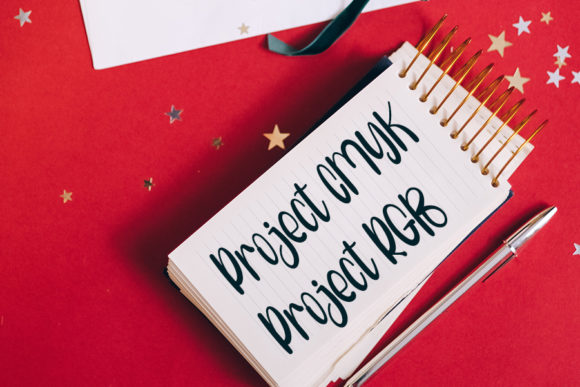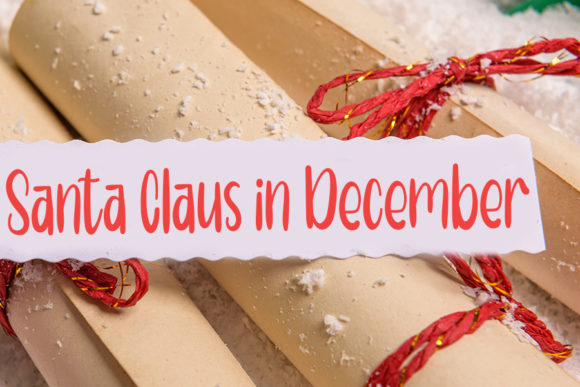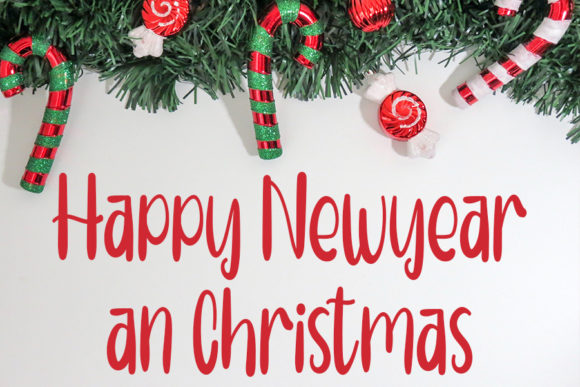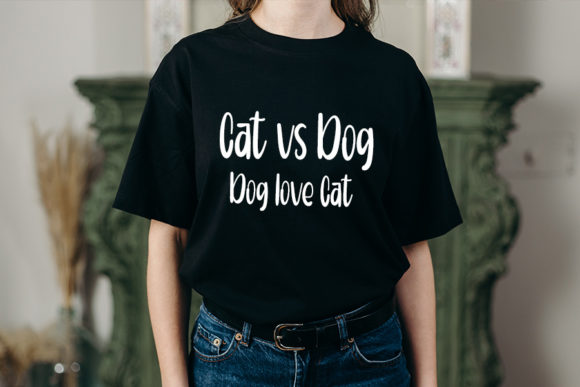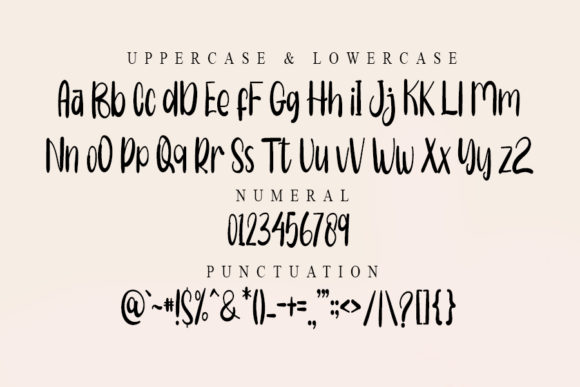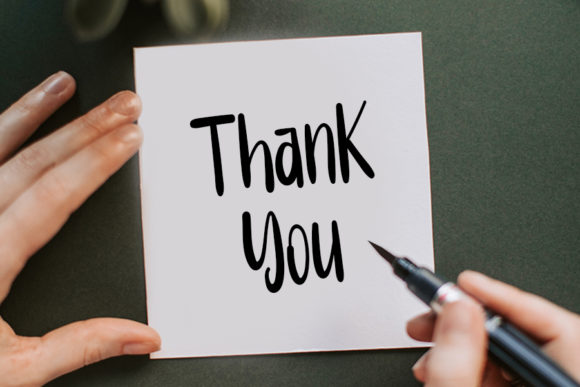
Introduction to Holala Peanut Font
Do you remember the feeling of excitement when you’re brainstorming a creative project and everything just clicks? You’ve got a brilliant idea, and you can’t wait to bring it to life. For designers, this moment is a game-changer, and the right design resource can make all the difference. That’s where the Holala Peanut Font comes in – a high-quality display font that’s sure to elevate your next creative project.
Whether you’re looking for fonts for Instagram or calligraphy scripts for DIY projects, the Holala Peanut Font is a versatile and stylish choice. Its playful design makes it perfect for adding a touch of whimsy to your work, and with its transparent background, you can easily combine it with other design elements to create a unique look.
Key Features of Holala Peanut Font
- Unique, playful design: Holala Peanut Font is a creative resource for your next project, featuring a fun and quirky style that’s sure to add a touch of personality to your design.
Honest Review: Holala Peanut Font
I recently stumbled upon the Holala Peanut Font while searching for a unique design resource for a creative project. The font immediately caught my attention with its playful and quirky feel, making it perfect for adding a touch of whimsy to any design.
- ✨ Unique and playful design aesthetic
- ✨ High quality and detailed typography
However, I did encounter some limitations with the font. For instance, the Holala Peanut Font is not ideal for formal or professional designs, as its playful feel may not be suitable for more serious projects. Additionally, the font may not be compatible with all operating systems or software, which could be a concern for designers who work with a variety of platforms.
Overall, I’m impressed with the Holala Peanut Font and its potential for adding a creative touch to designs. While it may have some limitations, its unique design and high quality make it a valuable resource for designers looking for a fun and engaging font.
The Holala Peanut Font is suitable for a variety of design projects, including social media graphics, blog posts, and business presentations. Its unique style and transparent background make it easy to use in different design contexts.